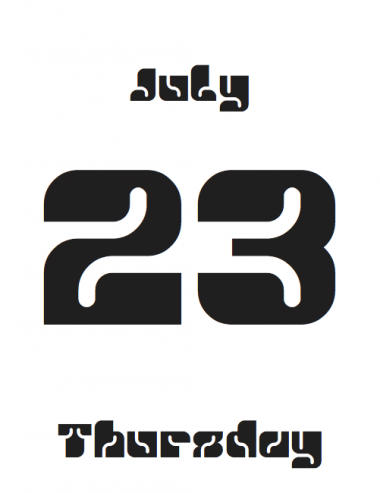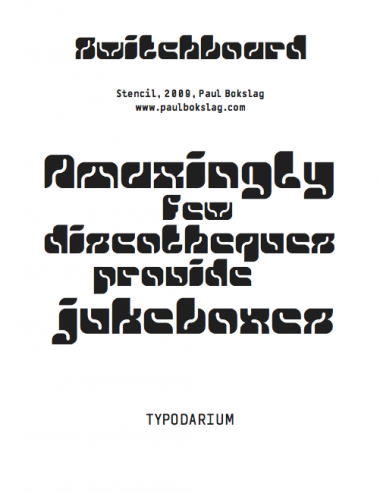
A small grid beauty!
Awesome
WOW! Amazing! This is a really great font, a bit fs Fat Piano, and a bit techno-ish! My 10+fav 2 U!
Delightful! 10/10
Thanks everyone, I do enjoy working with the small grid. x-height on this one is three and a half bricks.
Beauty at the small grid, congrats!!
You've amassed quite a library of unique and interesting typefaces. Really nice work within the small grid realm. Looking closer, there are letters you've designed in this font that I feel shouldn't work, but they do! I'm talking about the places where the "worms" burrow into the letter and aren't necessarily defining the letterform, but used as a design motif. Wormboard! I really like the symmetry of the m and w.
Wormboard, aka “Worms on a Plane”. One look switched me from bored. ;)
Very nice! Even if some letters are not so pretty to me (m/w), they do work in this set. I like that pangram also.
@geneus1: Thanks, I have added alternates for s,S,z,Z with some more defining whitelines.
@will.i.ૐ: Thanks, I hope it doesn't turn out to be a can of worms. ;)
@Yautja: Thanks: I may look into alternates for m,w as well. The pangram came from the wikipedia list.
Dear four: I send you a sketch with a rejected idea to make with it a font, I've made it during my few days at the beautiful Zagreb city this summer (oh, what a nice time, I need more holydays!)... only two days after you publish here this beautiful font!. I was traveling and I've not see your excelent font... Convergent thinking, one more time, I said! Congrats for your excelent works.
Funky typeface! (in a good way)